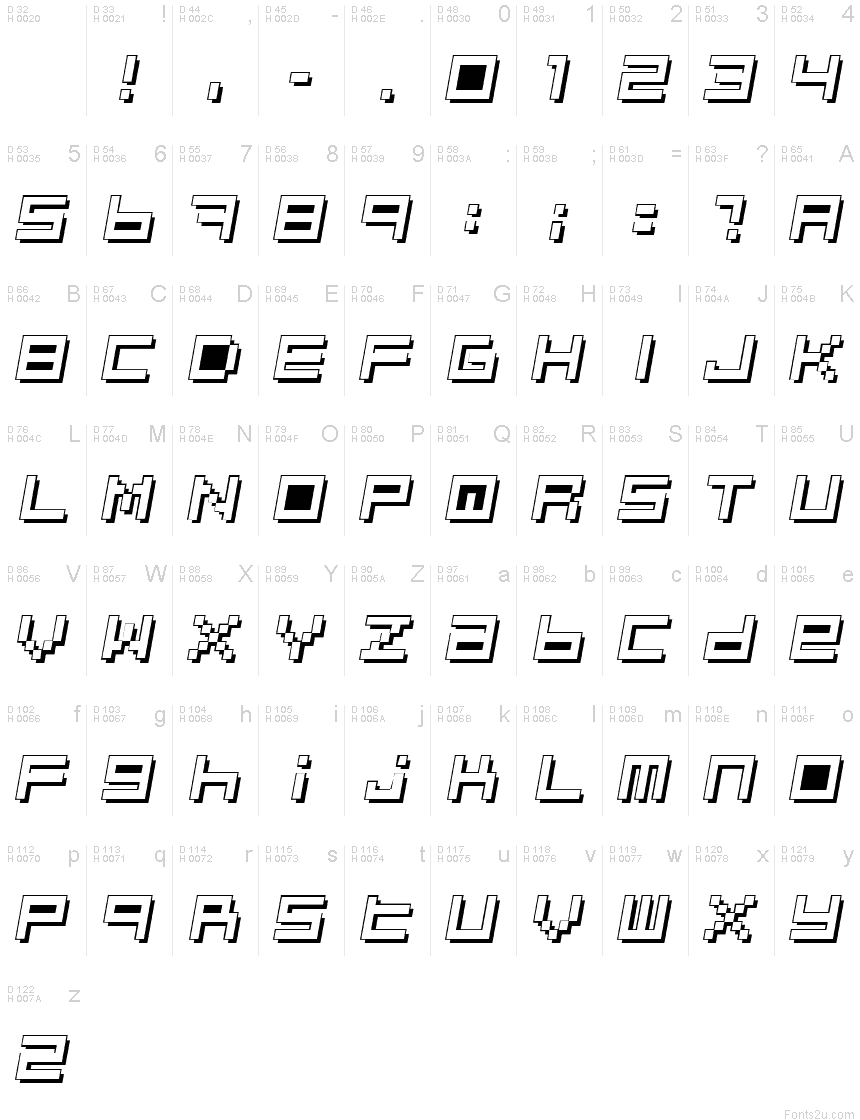
Optimal 3d
Optimal 3D by Fenotype is a free techno display font defined by broad block silhouettes and a hard offset shadow that pushes the lettering into arcade-era 3D territory. The repeated slant, squared corners, and deep black edging give the design a stacked, screen-graphic presence rather than a neutral geometric look.
That makes it a strong choice for game titles, esports banners, poster headlines, streaming overlays, and throwback packaging where the dimensional outline needs to do most of the visual work. Short phrases benefit most, since the shadowed construction creates a compact, sign-like mass that can anchor logos and splashy cover text.